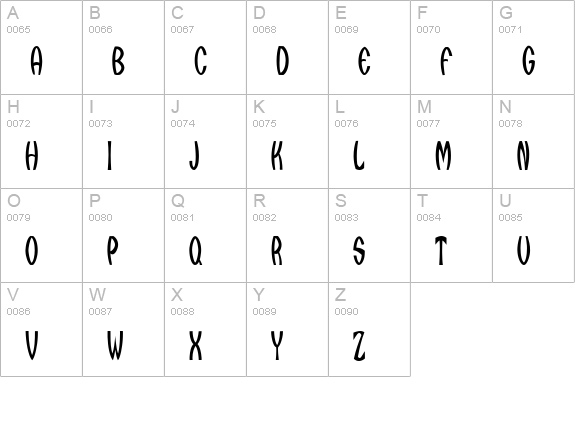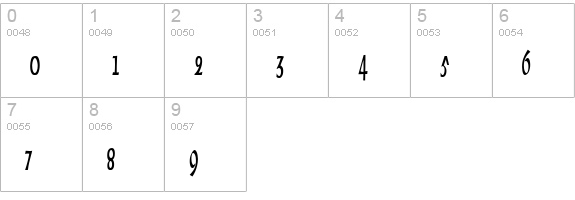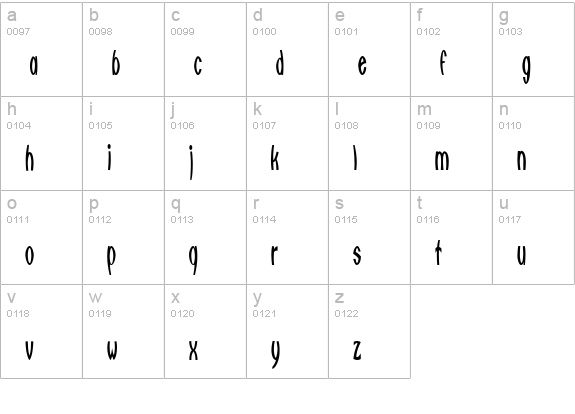
Qarats Font Details
Qarats font is a stunning typeface that will elevate your designs to a whole new level of elegance and sophistication. With its sleek and modern design, Qarats is perfect for a wide range of projects, from branding and logo design to packaging and editorial layouts. This font features clean lines and balanced proportions, making it incredibly versatile and easy to read. Its unique and stylish letterforms add a touch of personality to any design, while still maintaining a high level of legibility. One of the best things about Qarats font is that it is completely free. Yes, you read that right - this incredible typeface is freely available to download at FontsMarket.com. Whether you are a professional designer or just starting out, you can now enjoy the benefits of this amazing font without breaking the bank. Qarats font is designed with accessibility in mind, ensuring that your message is easily communicated to your audience. Its carefully crafted letterforms ensure that each character is distinct and easy to recognize, even at small sizes or low resolutions. With Qarats font, you can create stunning designs that will leave a lasting impression on your audience. Whether you are designing a logo for a high-end brand or creating a beautiful wedding invitation, this font will help you achieve the look and feel you desire. Don't miss out on this incredible opportunity to enhance your designs with Qarats font. Download it for free at FontsMarket.com and start creating awe-inspiring designs today.